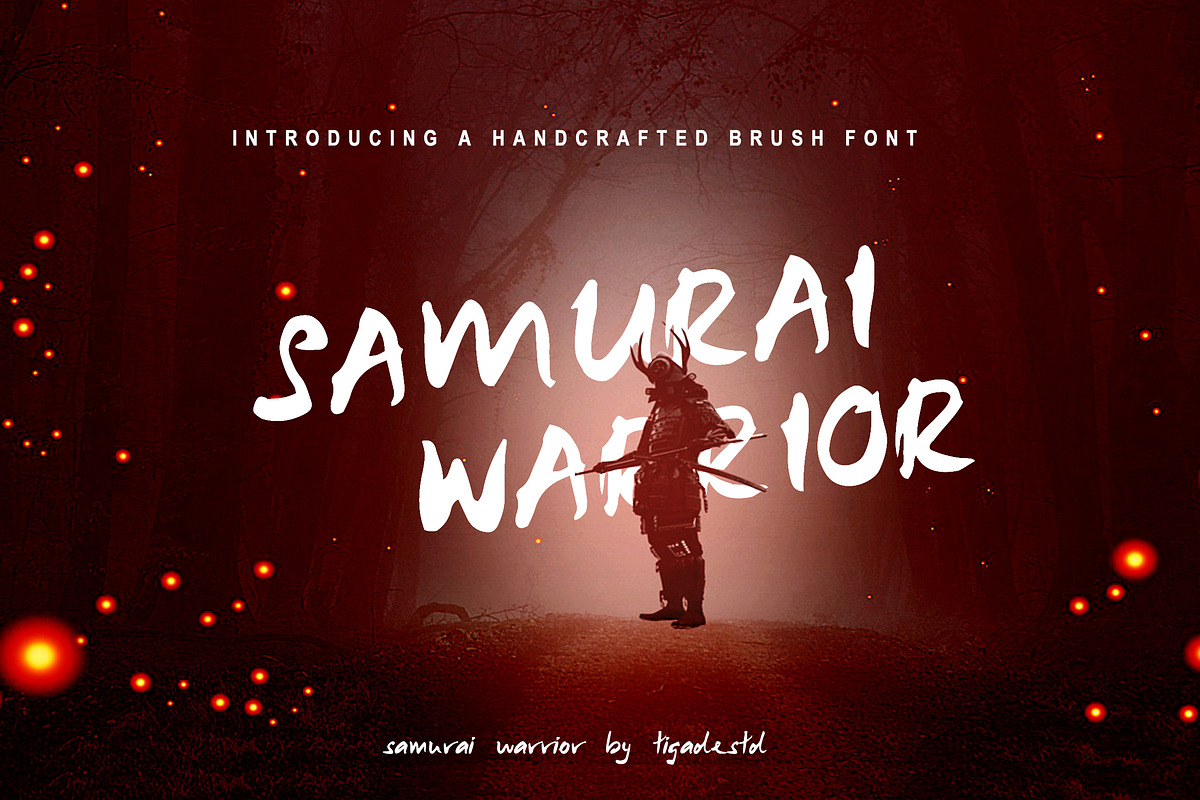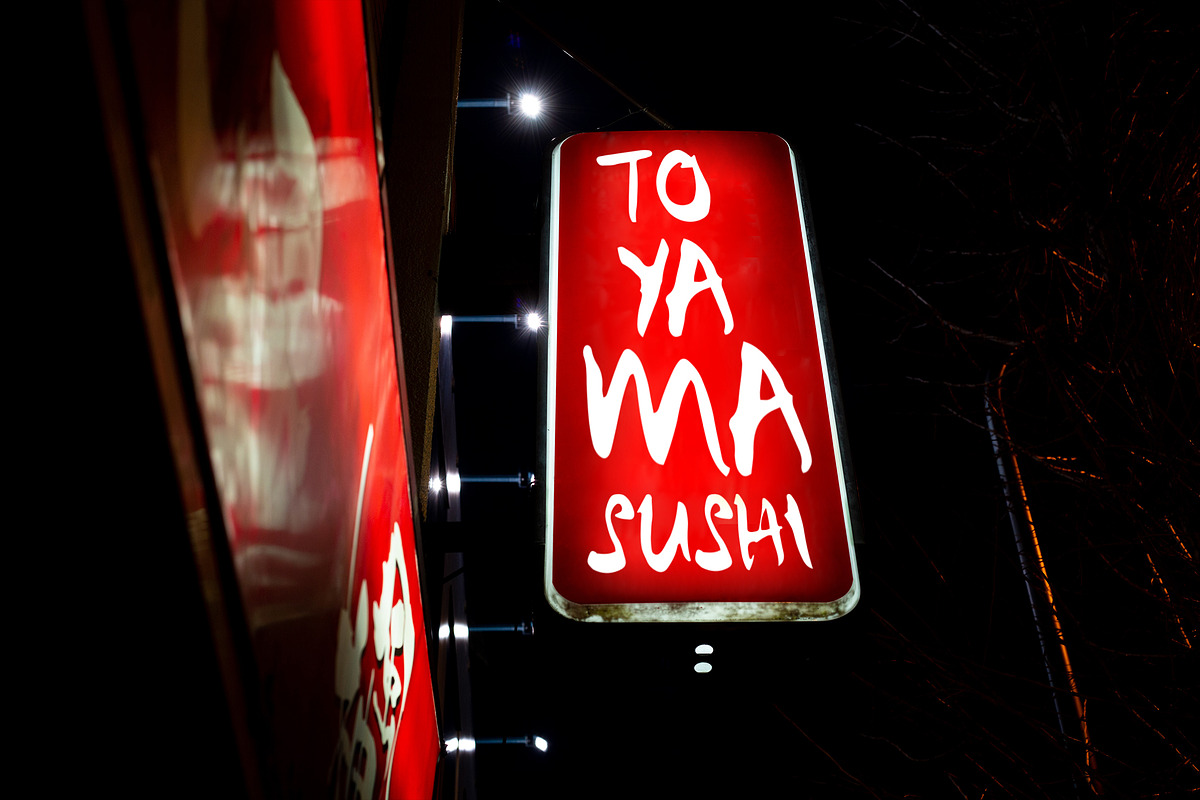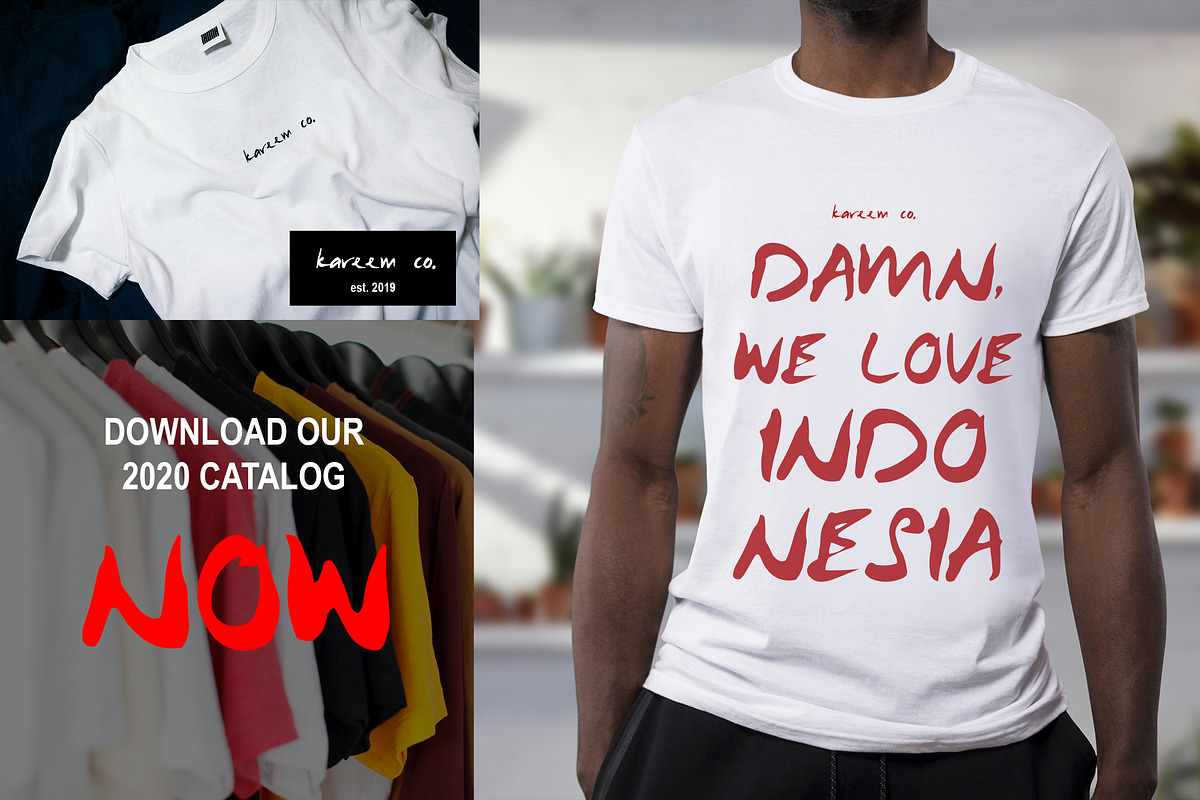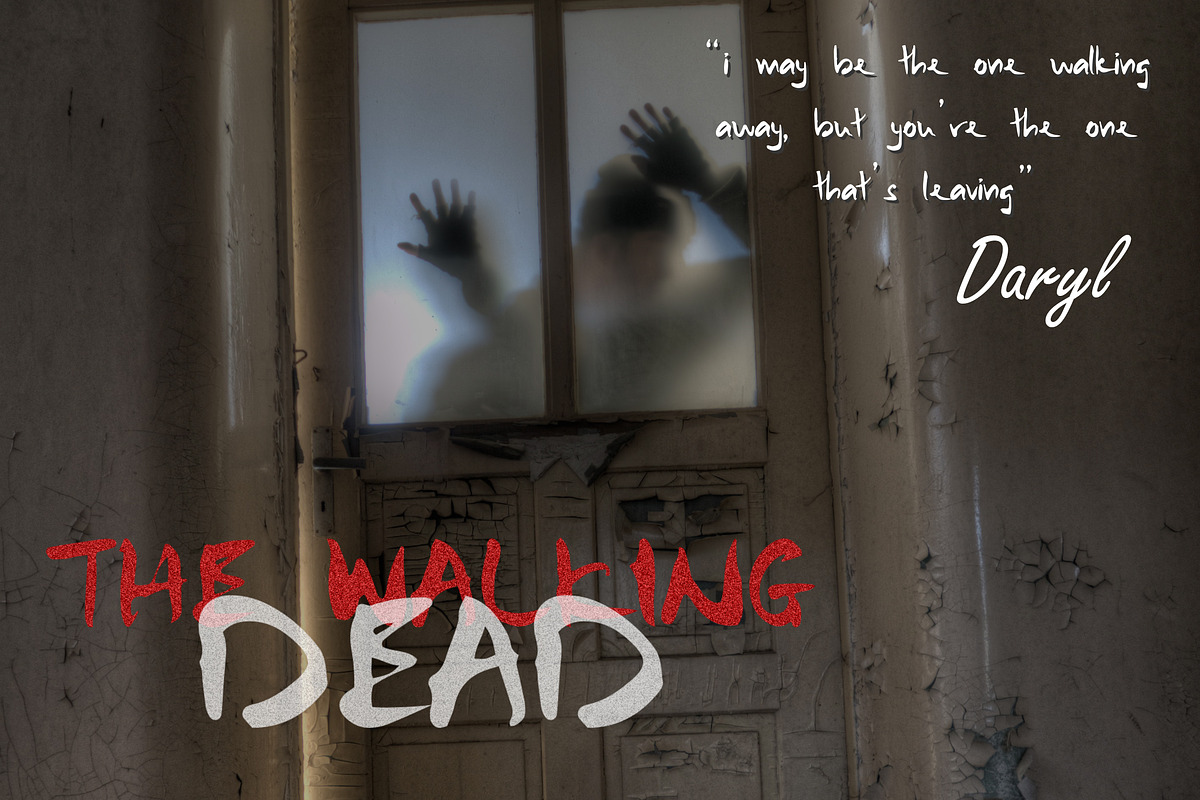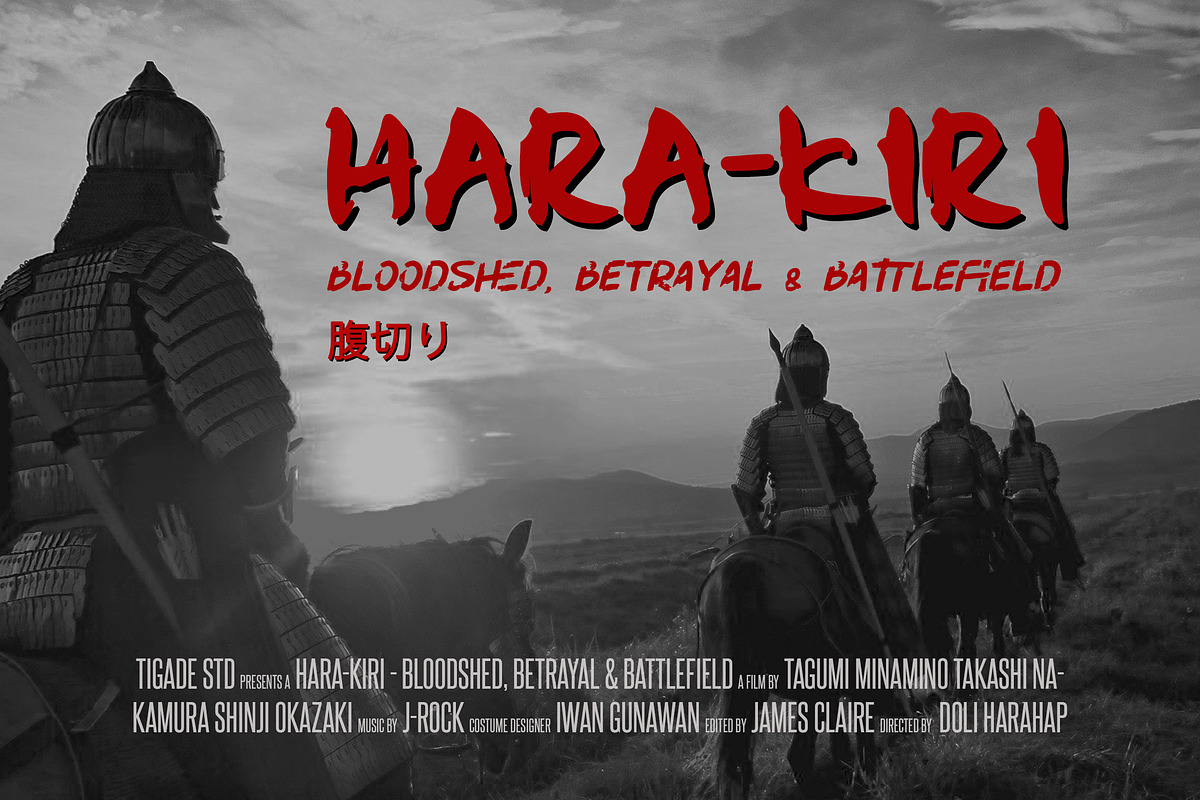
Samurai Warrior | Japanese Style
Samurai Warrior is a handcrafted brush font. Made with passion with influence a bit from Japanese style . However, it is still suitable for other usage such as T-Shirt Design, Movie Poster, Movie Title and many more. Not only for Japanese or Asian style, but also can be used for Horror or even to show Strong Spirit. It comes with:
- Regular & Italic